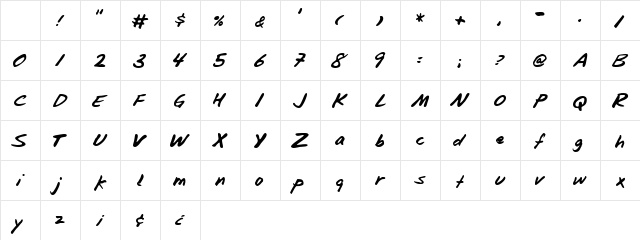
Complete Blunter Regular glyph index. Displaying only characters natively supported by Blunter Regular font.
Blunter is a composed and adaptable typeface that performs quietly and consistently across a wide range of design contexts.